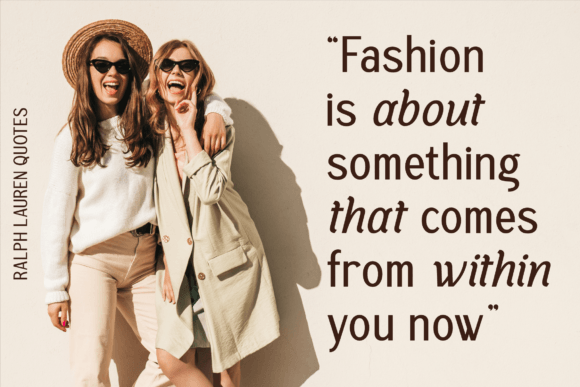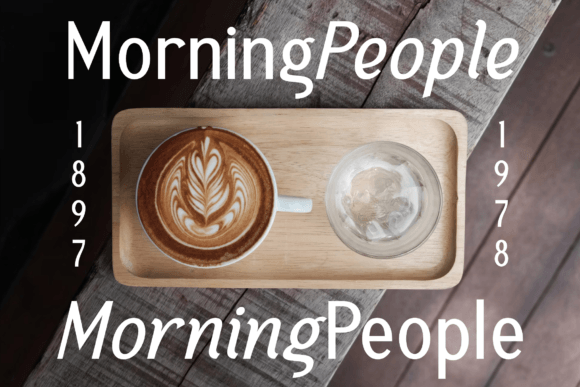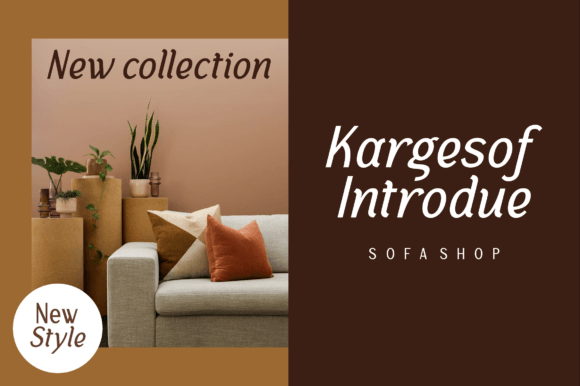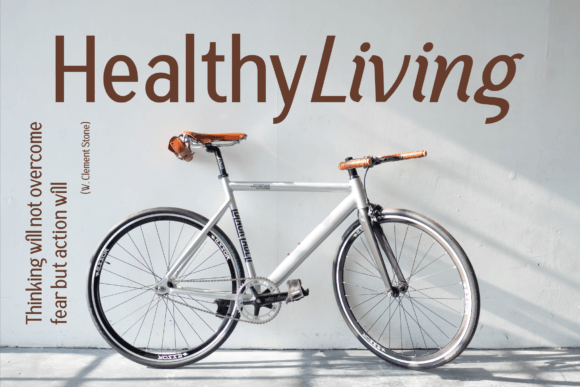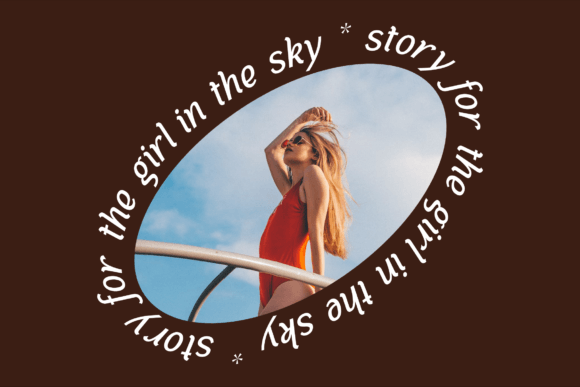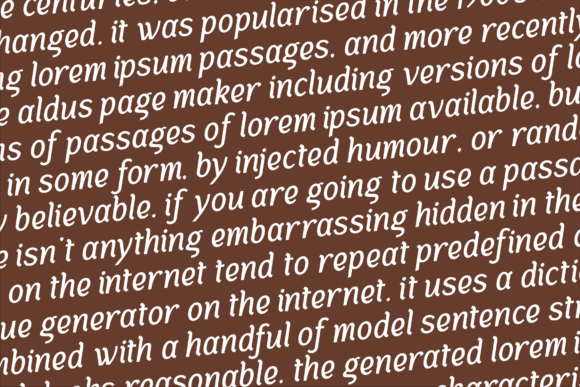
Belfika Namor Font: Elevate Your Designs with Elegance and Sophistication
In the world of typography, a well-crafted font can make all the difference in elevating your design to new heights. Introducing the Belfika Namor Typeface, a masterpiece created by Storytype that embodies the perfect blend of modernity and classic elegance. This serif font is designed to leave a lasting impression, making it an ideal choice for designers and crafters seeking to add a touch of luxury to their work.
A Unique Style that Stands Out
Belfika Namor boasts a distinctive style that sets it apart from other typefaces. Its modern and classic design makes it an excellent choice for a wide range of applications, from elegant logos and book or movie titles to fashion brands, magazines, and clothing designs. The font’s unique character is sure to capture the attention of your audience and leave a lasting impression.
Perfect for Luxury and Elegant Designs
Whether you’re working on a luxury brand, high-end fashion label, or a sophisticated magazine, Belfika Namor is the perfect choice. Its elegant and refined design exudes sophistication and poise, making it an excellent fit for designs that require a touch of class. The font’s classic serif style ensures that your design will stand the test of time, remaining timeless and relevant for years to come.
Belfika Namor is an incredibly versatile font that can be used in a multitude of creative projects. Some of the many applications include:
- Elegant logos and branding
- Book and movie titles
- Fashion brand designs
- Magazine and newspaper layouts
- Clothing and apparel designs
- Lettering and quotes
Why Choose Belfika Namor?
So, what sets Belfika Namor apart from other fonts? Here are just a few reasons why designers and crafters are falling in love with this stunning typeface:
- Unique style: Belfika Namor boasts a distinctive design that will set your work apart from the crowd.
- Elegant and sophisticated: This font exudes luxury and refinement, making it perfect for high-end designs.
- Versatile: Use Belfika Namor in a wide range of creative projects, from logos and branding to fashion and publishing.
- Timeless: The font’s classic serif style ensures that your design will remain timeless and relevant for years to come.
Are you ready to take your designs to the next level? Look no further than Belfika Namor, the perfect choice for designers and crafters seeking to add a touch of elegance and sophistication to their work. With its unique style, versatility, and timeless design, this font is sure to become a staple in your design toolkit.